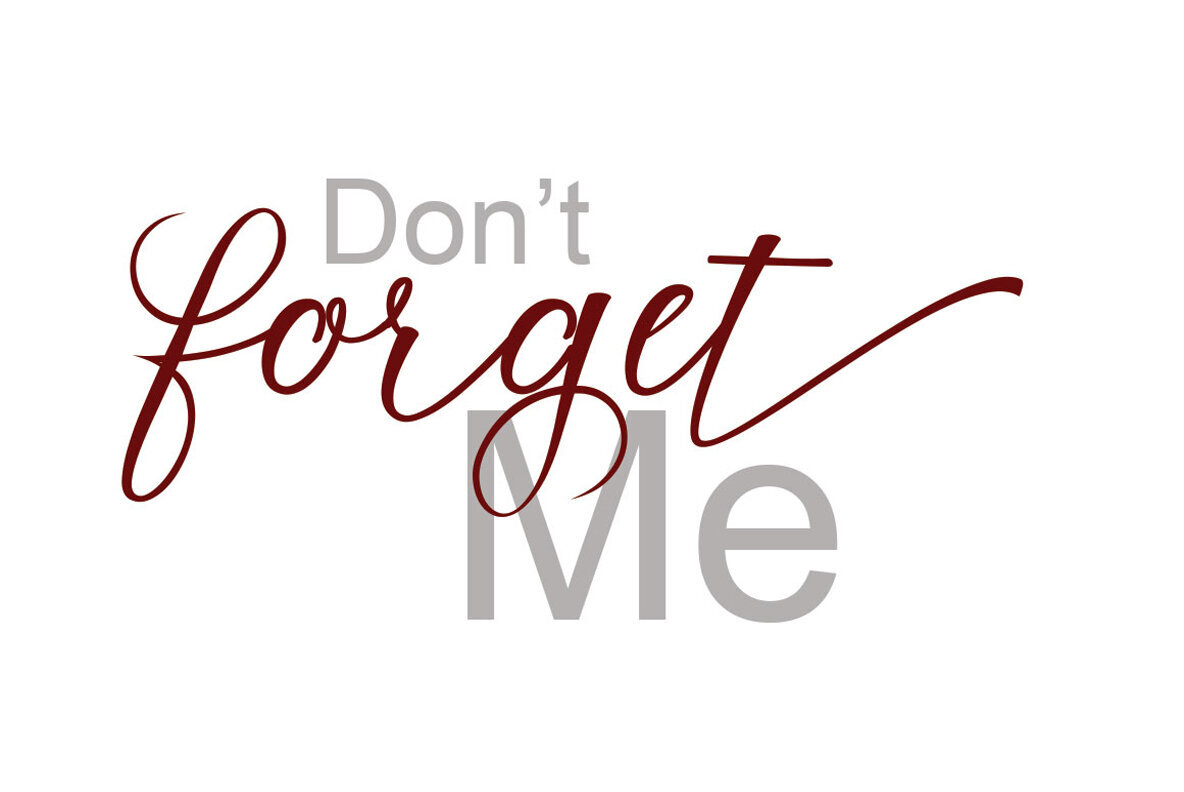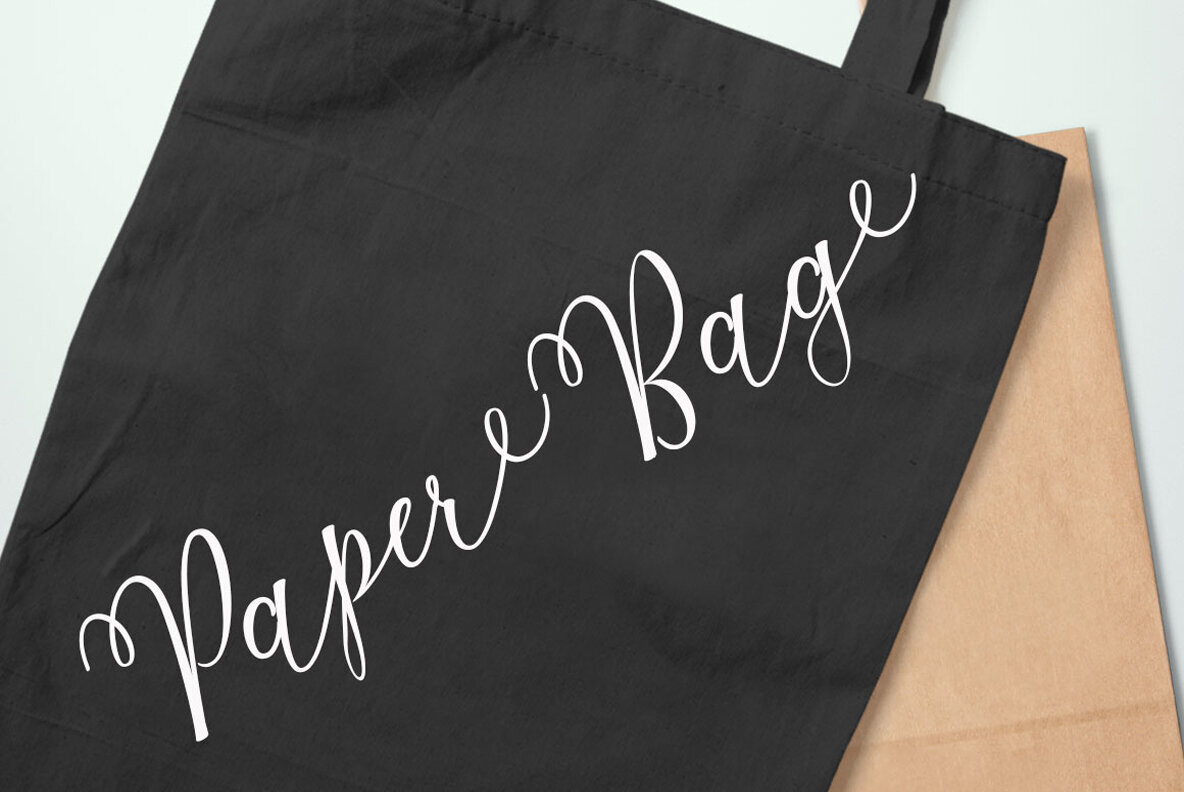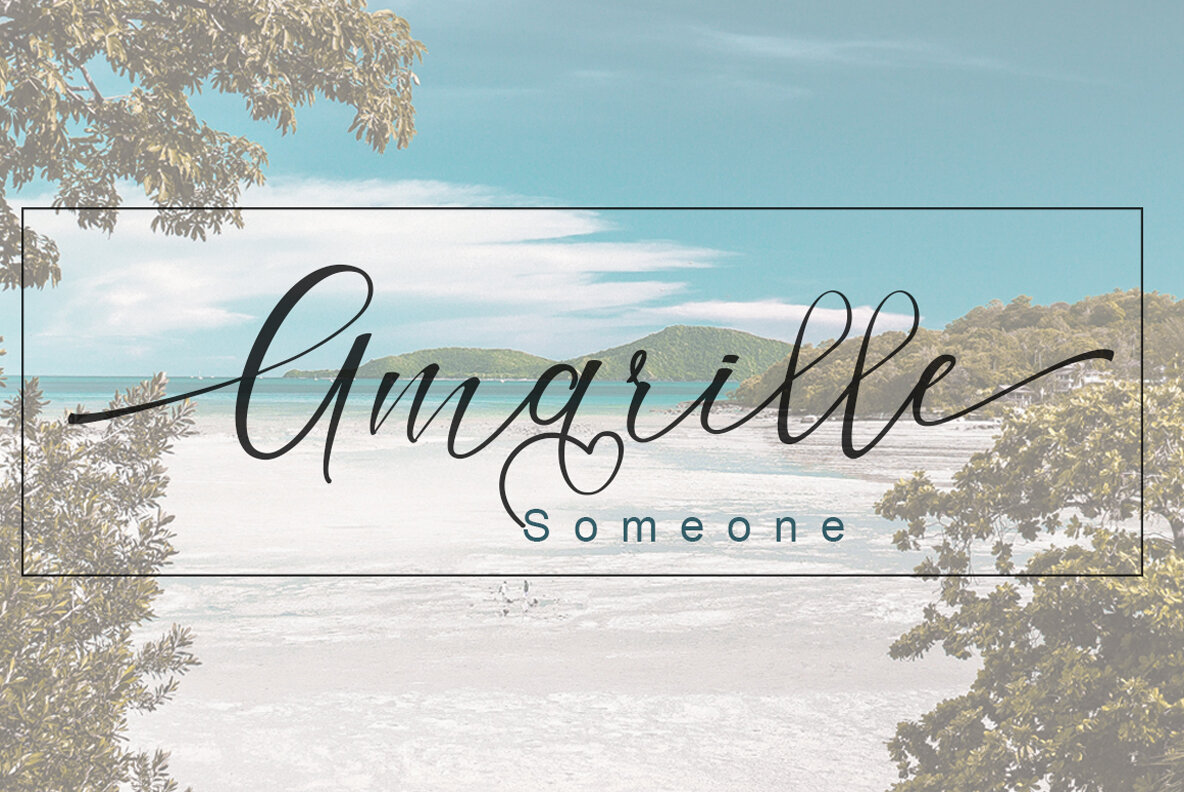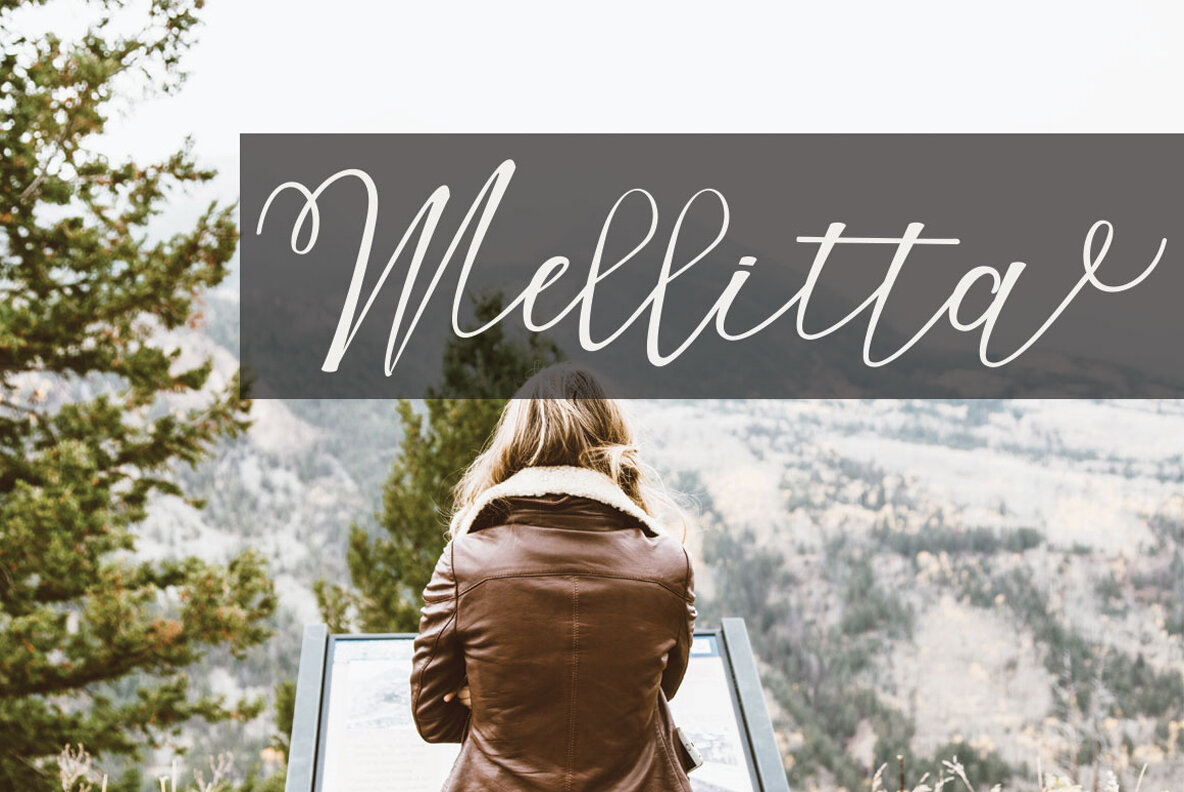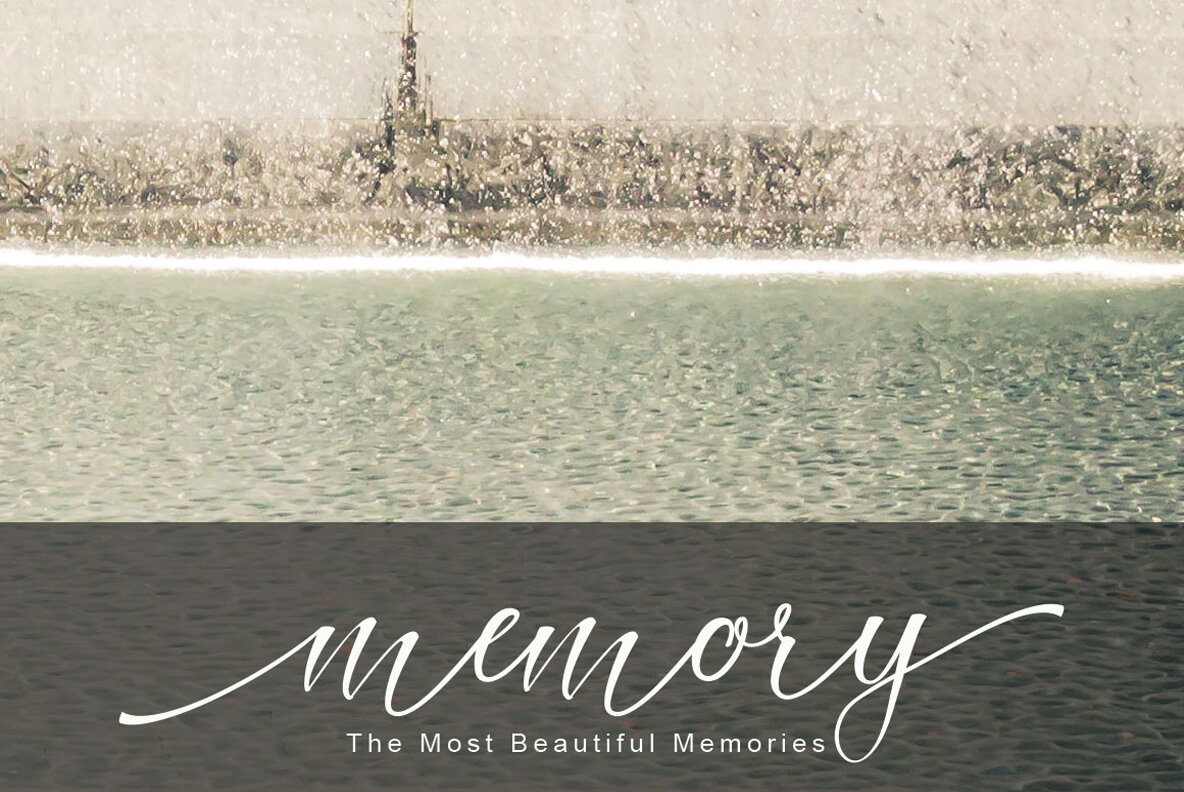
Millenial Font
Millenial Regular
Millenial Script by Muhammad Nur combines the elegance of fine lines with classic calligraphy, offering a varied baseline and stylish touches. It's versatile enough for a range of projects, making it ideal for titles, signatures, logos, wedding invitations, t-shirts, letterheads, nameplates, labels, posters, and badges. Millenial Script includes a variety of features to enhance your design work. Enjoy alternate characters, initial letters, terminals, ligatures, and support for multiple languages. The Millenial Script font is compatible with software such as Adobe Photoshop, Adobe Illustrator, Adobe InDesign, CorelDraw, and Microsoft Office. For optimal use of OpenType features, ensure your program supports them. Enjoy the unique, dance-like character of Millenial Script's calligraphy in your modern design work.Millenial Script: Elegant Calligraphy for Modern Designs